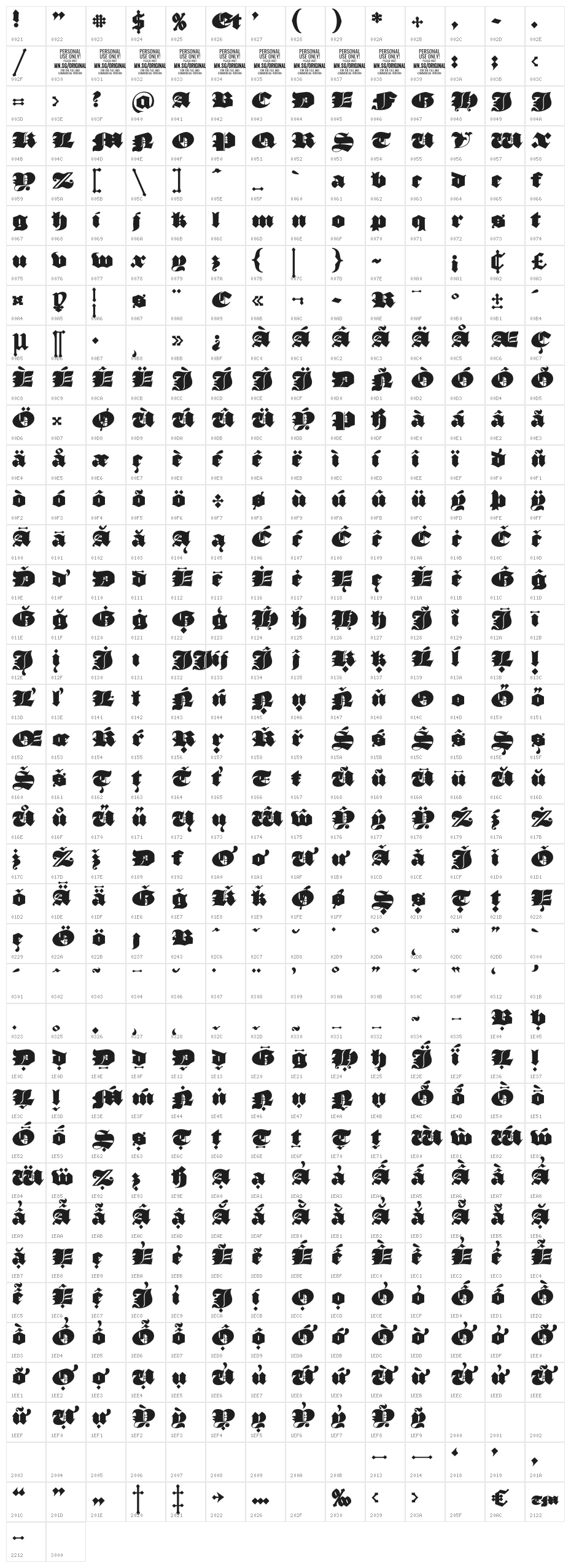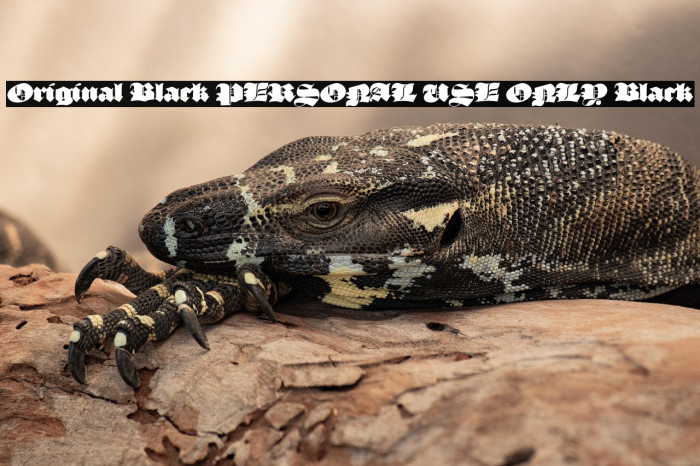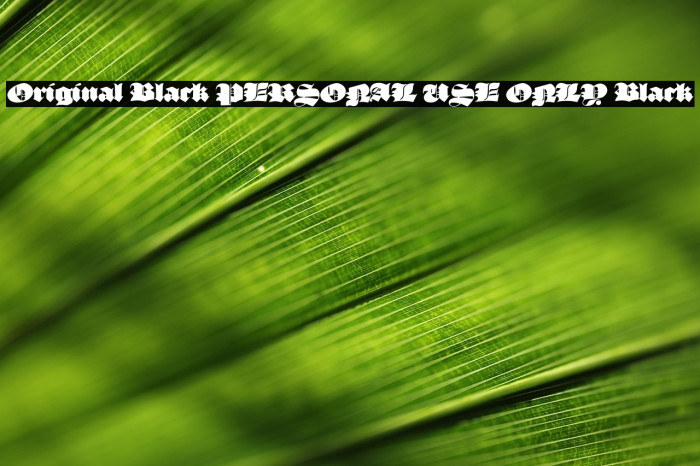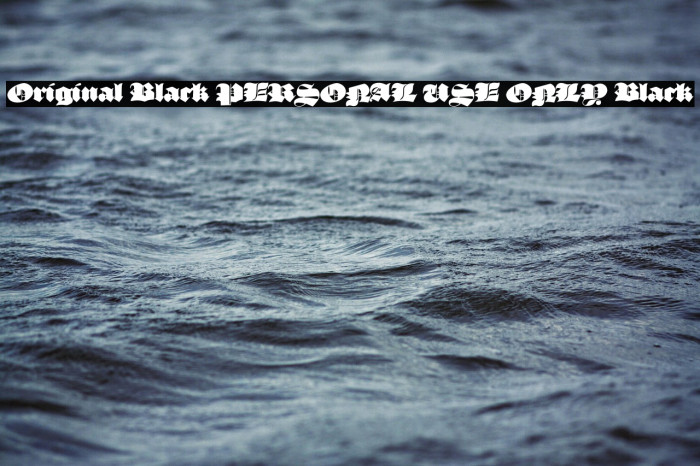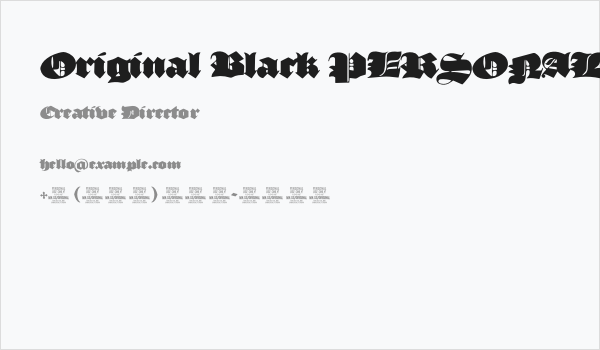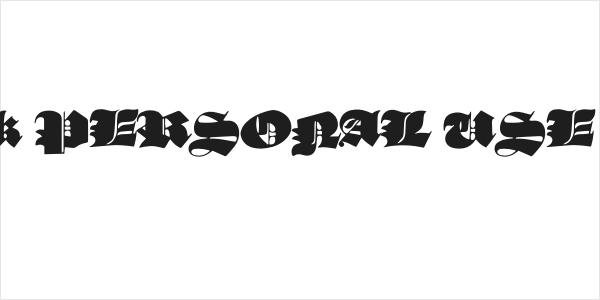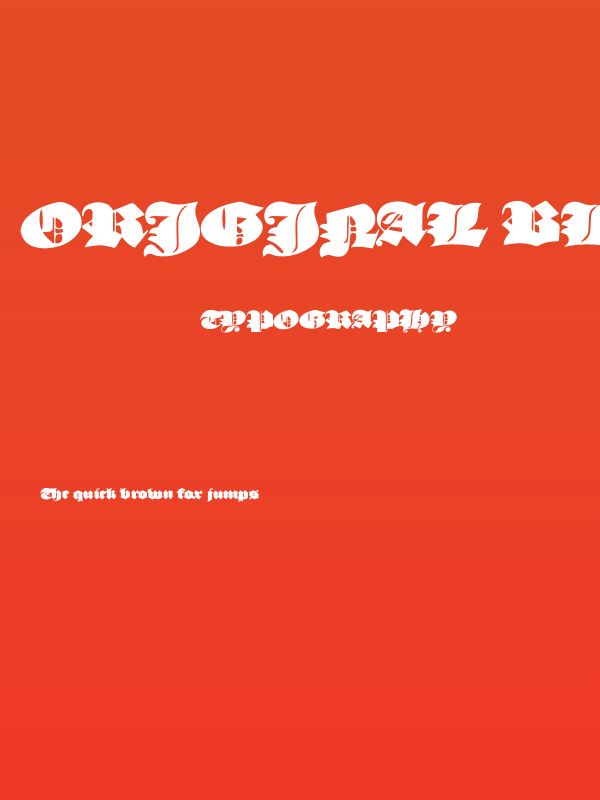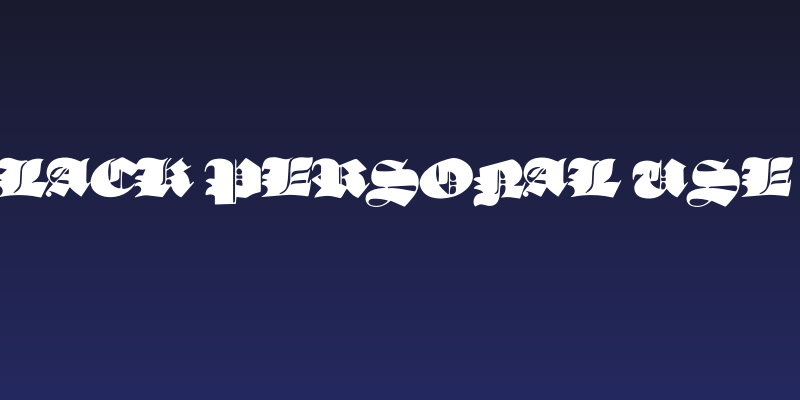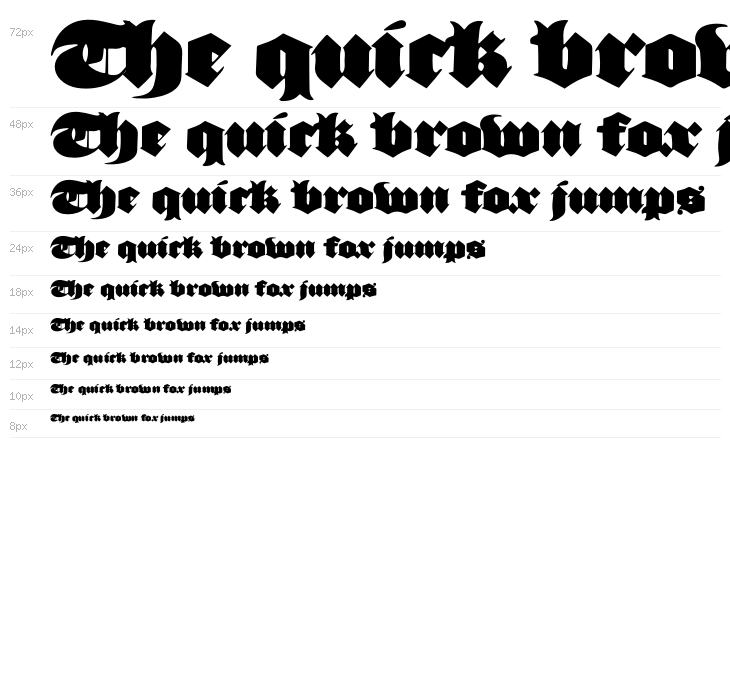
Original Black PERSONAL USE ONLY Black Font
Original Black PERSONAL USE ONLY Black Description
This font features a bold and dramatic blackletter style, characterized by its intricate and ornate letterforms. The uppercase and lowercase letters are designed with sharp angles and decorative flourishes, giving it a gothic and medieval appearance. The font maintains a consistent weight throughout, with thick strokes and minimal contrast, creating a strong visual impact. The special characters are equally elaborate, matching the overall aesthetic of the alphabet. This typeface is ideal for projects that require a historical or traditional feel, such as event posters, book covers, or branding for vintage-themed products.
| Use Case | Logos, Headlines |
| Proposed Projects | Ideal for vintage-themed branding, historical event posters, and book covers. |